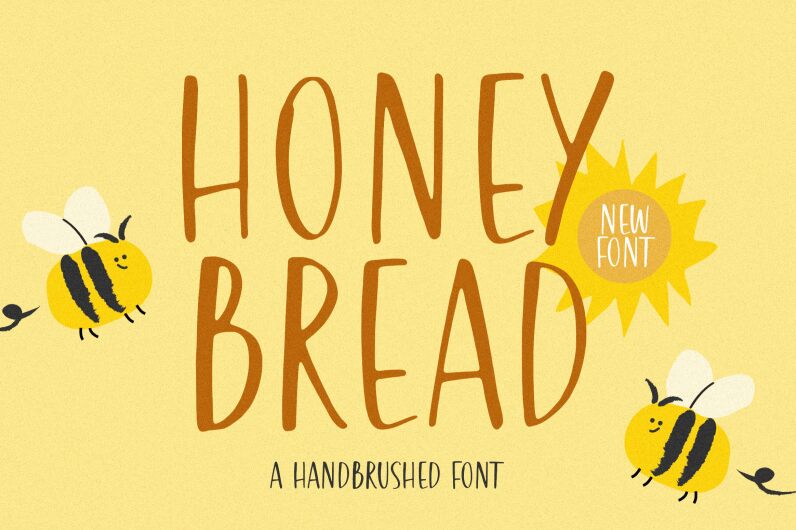
Honey Bread
Honey Bread font is designed by Balpirick Studio. A playful handwritten font that was created for a fun and lightweight design. Based on unique handwriting style with narrow shape to get more personal touch on your design, emerging the individual character of a person who like something fun and chic. Equipped with Opentype Features to make it even sweeter on your project!
Honey Bread Font is perfect for designs celebrating being you or seasonal holiday designs! The sweet, adorable letters are perfect for crafters, and the wide set spacing between each letter make this an excellent staple font for vinyl cutting when you're feeling cute & clever.